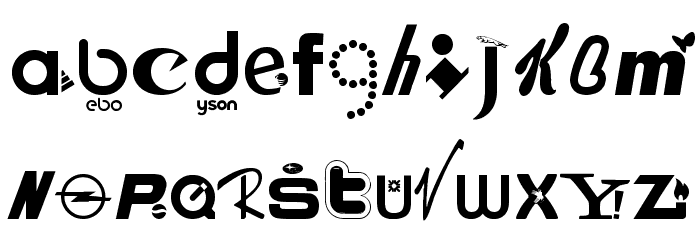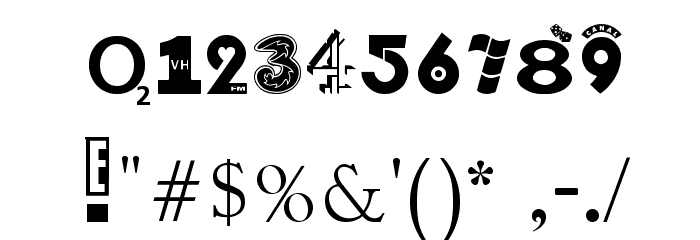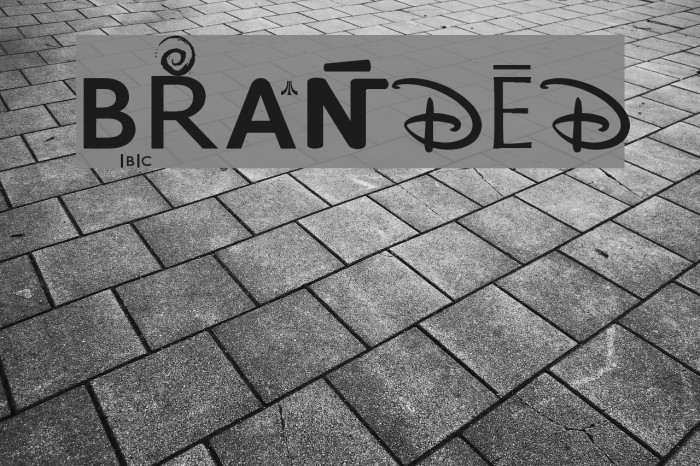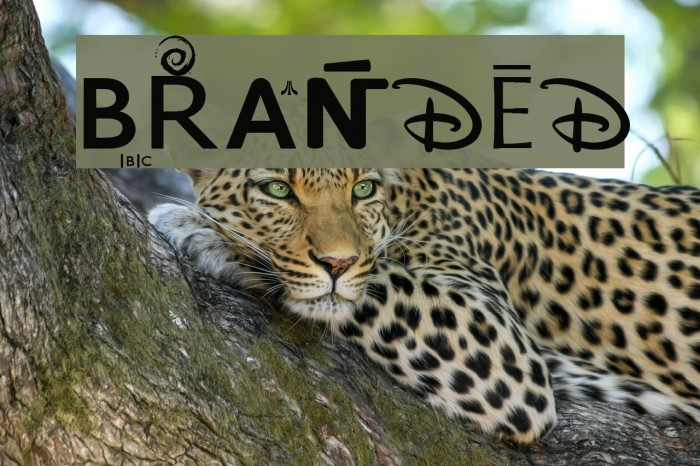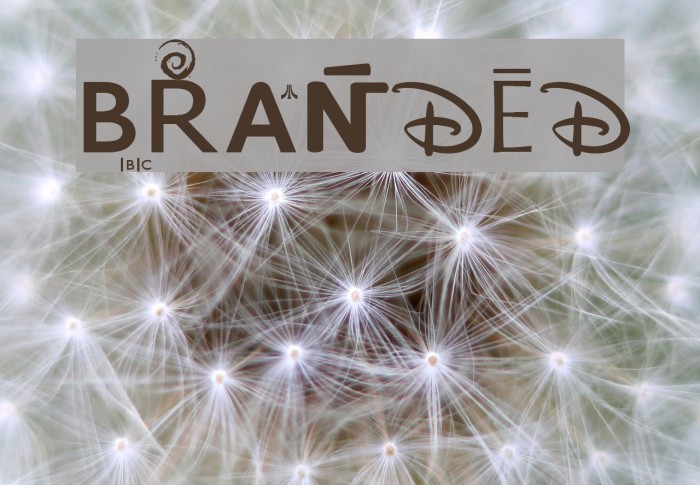
BRANDED Font
This font is a playful and eclectic collection of characters, each uniquely styled to resemble various well-known brand logos. The letters and numbers are creatively designed, incorporating elements from recognizable logos, making each character distinct and visually engaging. This font is not uniform in style, as each character is crafted to mimic a different brand's aesthetic, resulting in a diverse and varied appearance. The font is highly decorative and serves as a visual homage to popular culture and branding. It is not suitable for body text due to its inconsistent style but can be used effectively in creative projects where a playful or thematic approach is desired.
A decorative font mimicking various brand logos, offering a playful and eclectic style.
- Proposed Projects: Ideal for creative projects, themed designs, or artistic displays where brand recognition and playful aesthetics are desired.
- Character Spacing: Varied
- Use Case: Logos, Artistic displays, Themed designs